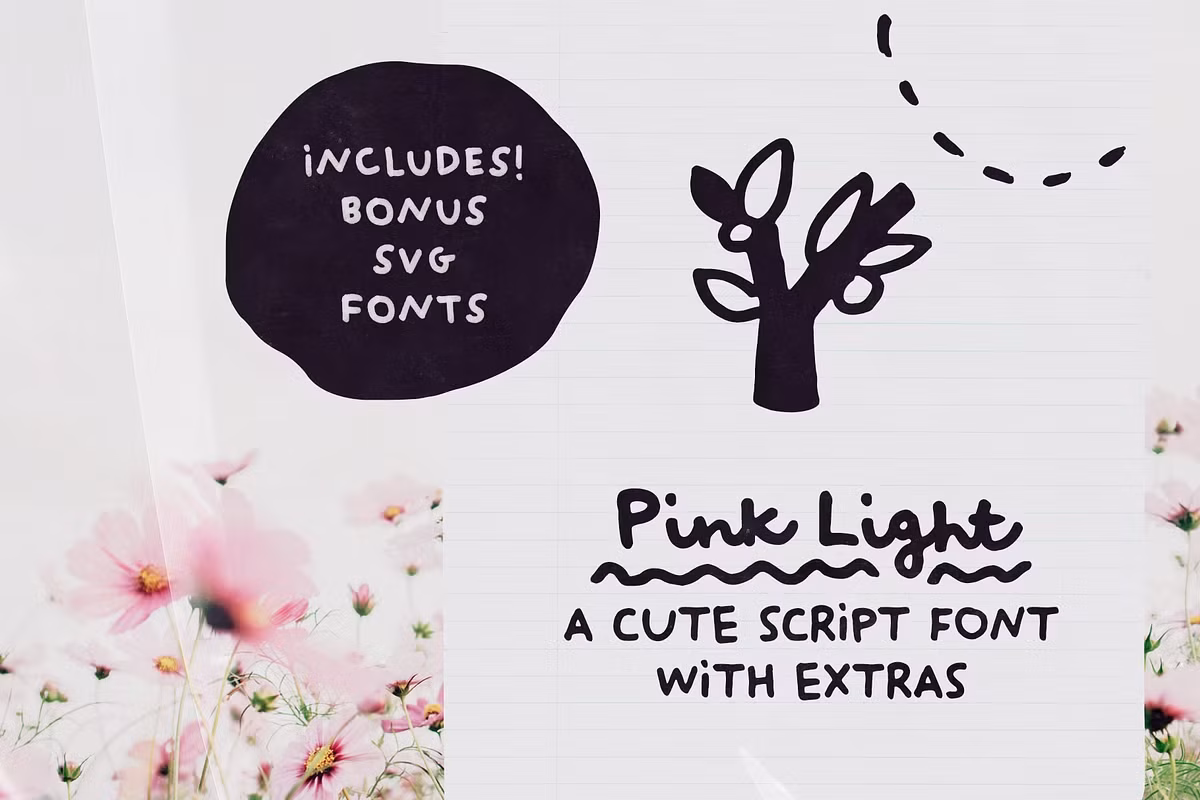
Pink Light Cute Script Font with SVG
Introducing Pink Light, a charming script font complemented by a variety of extras, including 62 delightful elements such as underlines, doodles, and fruit and floral illustrations. It also features an all-caps SVG font with a subtle marker texture, perfect for enhancing your designs.
• Character Set: Uppercase and lowercase letters, numerals, basic punctuation, and decorative elements
Usage Recommendations:
Pink Light is ideal for creating postcards, notes, posters, logotypes, social media posts, branding, and packaging.